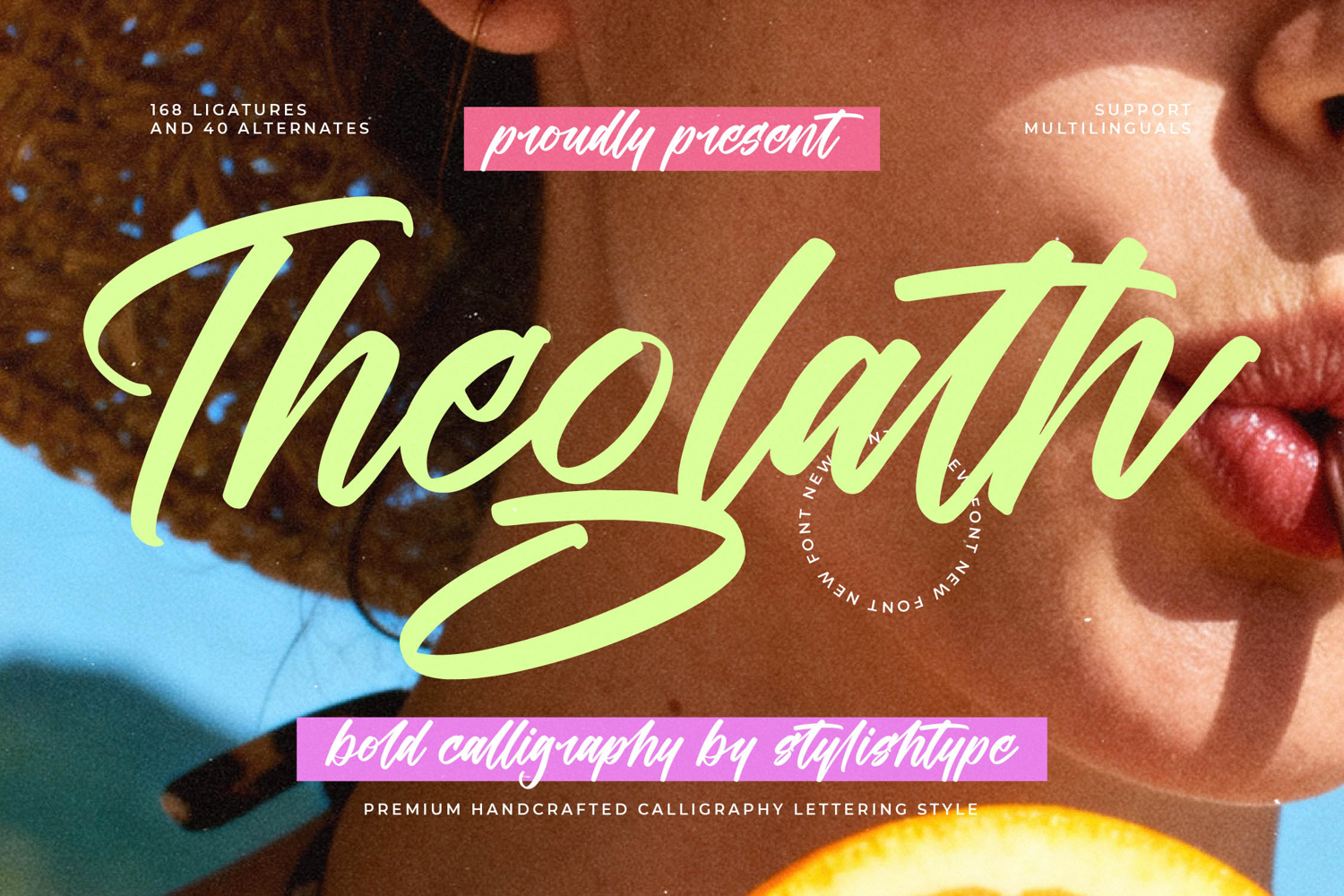
Theglath - Bold Calligraphy Font
Inject instant energy and authentic hand-drawn appeal into your designs. Introducing Theglath - Bold Calligraphy Font, a striking script typeface defined by its powerful, brush-like weight and expressive natural flow. This font is designed to command attention, offering a sense of immediate intimacy and dynamic movement perfect for titles and headline usage where clarity meets casual elegance. It transforms simple text into a memorable visual statement and is optimized for digital and print media alike.